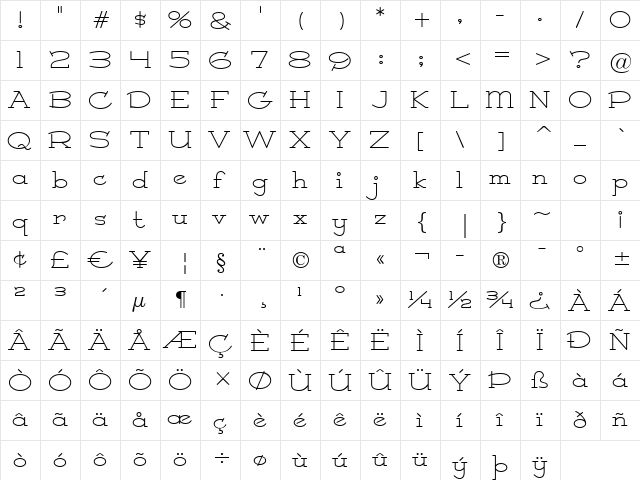
Princess BTN Lt Regular
Design Context for Princess BTN Lt Typeface
Princess BTN Lt offers clean, dependable letterforms without strong stylistic allegiance, making it a practical choice for designers who need flexibility. The delicate stroke weight brings airiness and refinement to layouts.